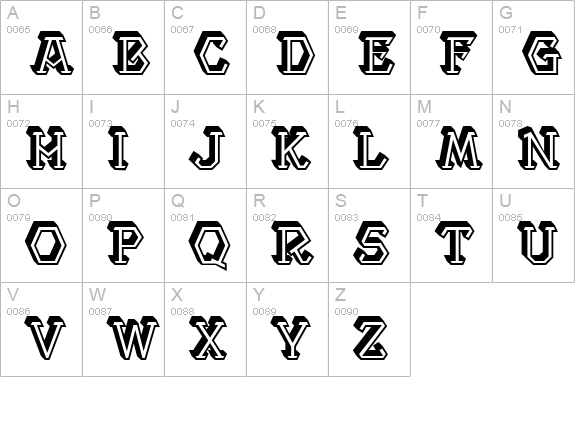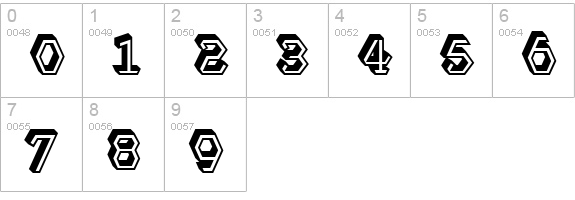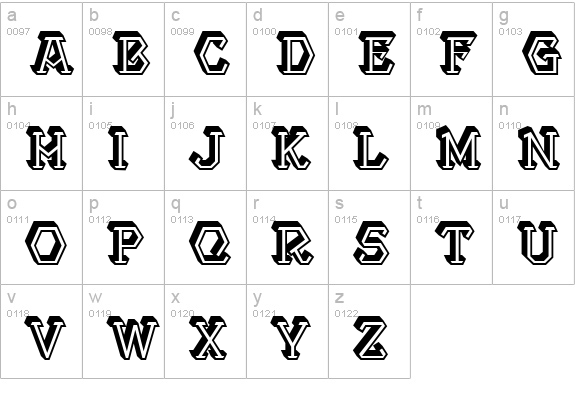
Project3000 Font Details
Project3000 font is a modern and stylish typeface that exudes a sense of sophistication and creativity. With its sleek lines and elegant curves, this font is perfect for a wide range of design projects, from branding to invitations to posters. The clean and versatile design of Project3000 font makes it a must-have for any designer looking to add a touch of elegance to their work. The best part is that Project3000 font is completely free to download at FontsMarket.com. This means you can easily access this beautiful font and use it in your projects without any cost. Whether you are a professional designer or a hobbyist, Project3000 font is the perfect choice for adding a touch of class to your designs. Download it today and elevate your projects with this stunning typeface.